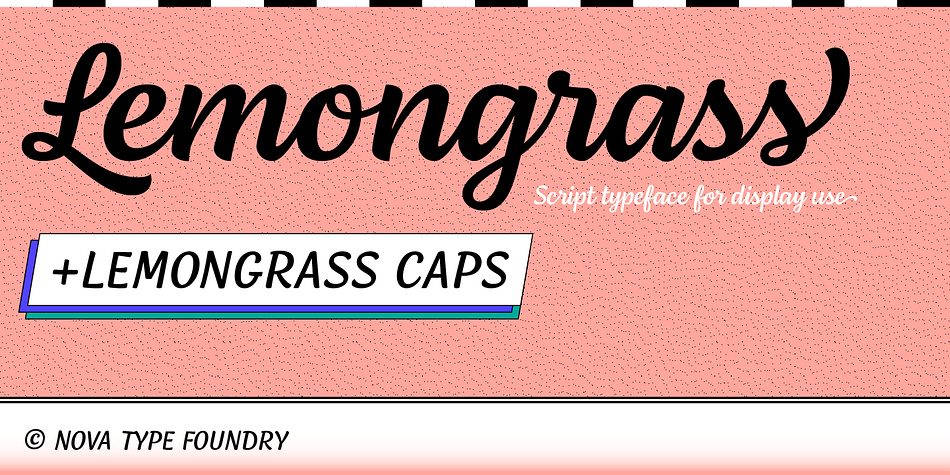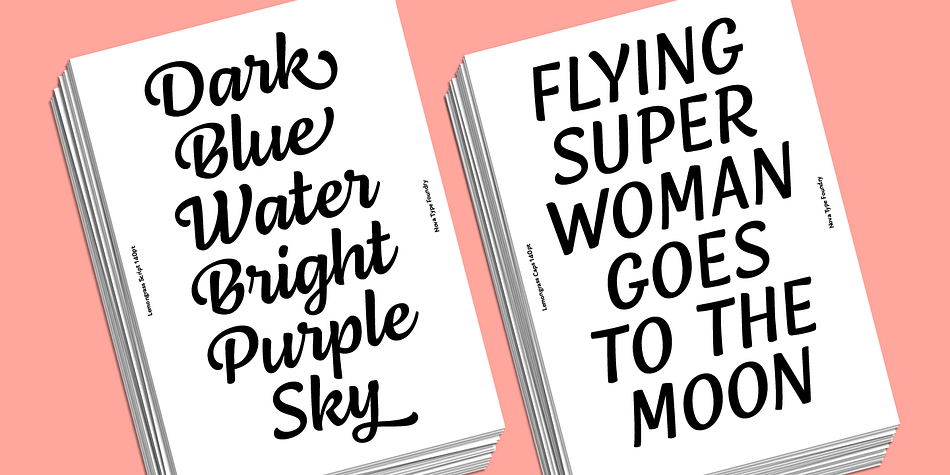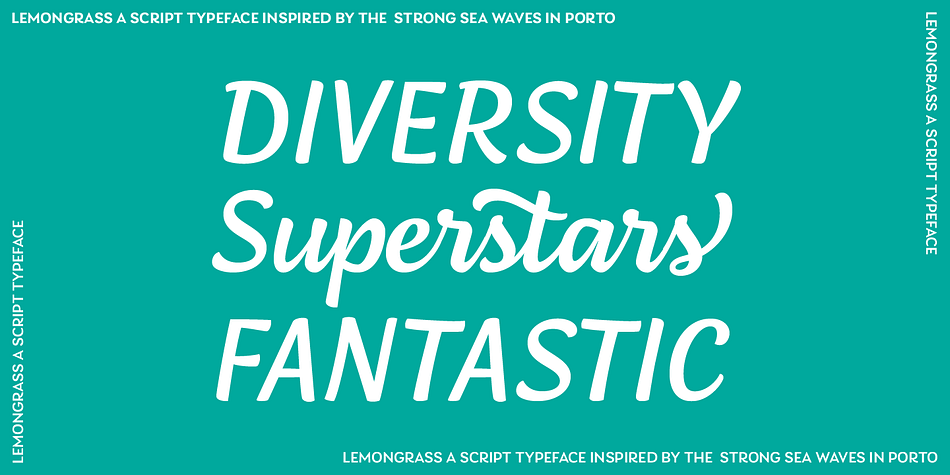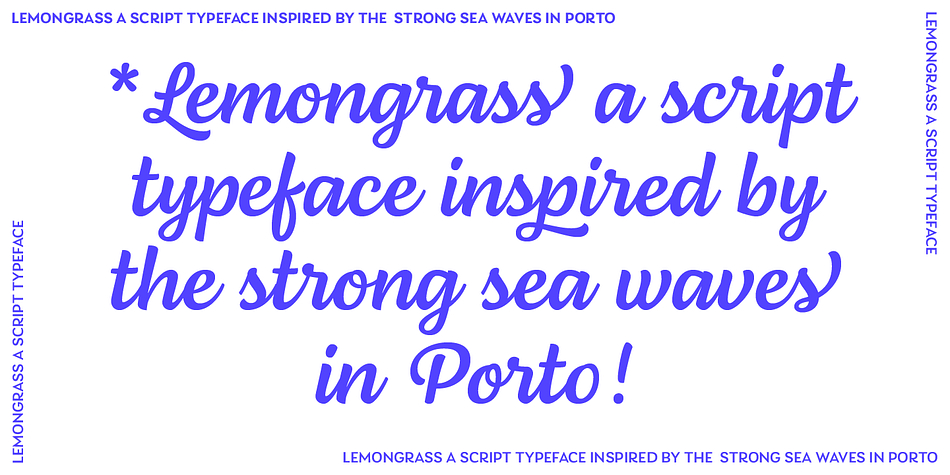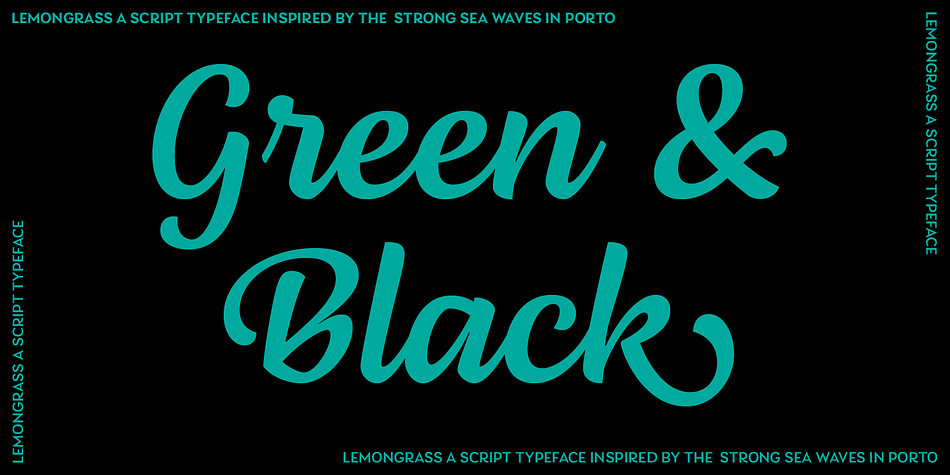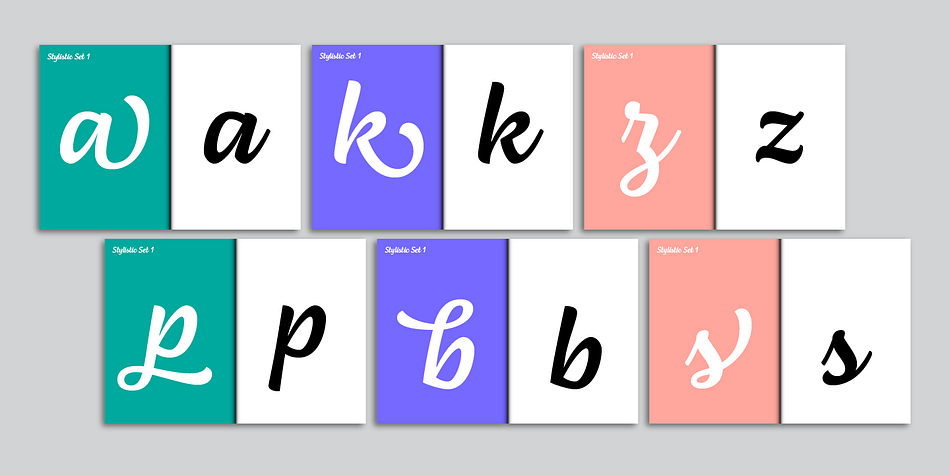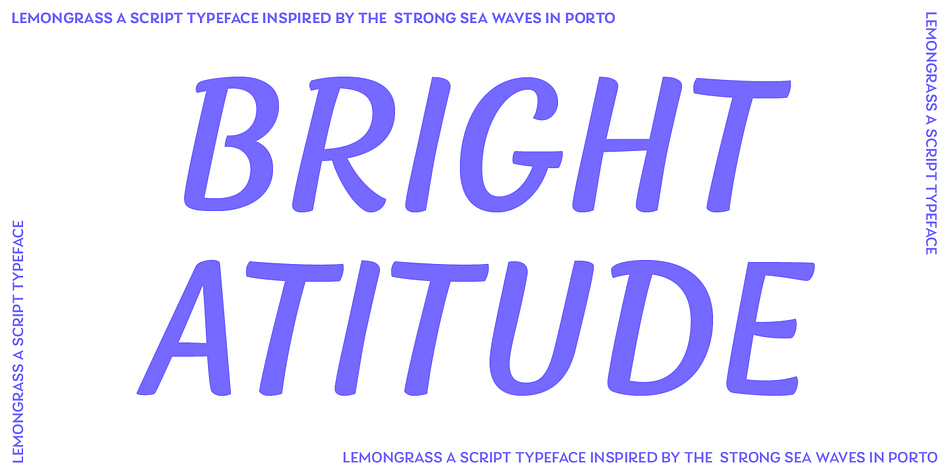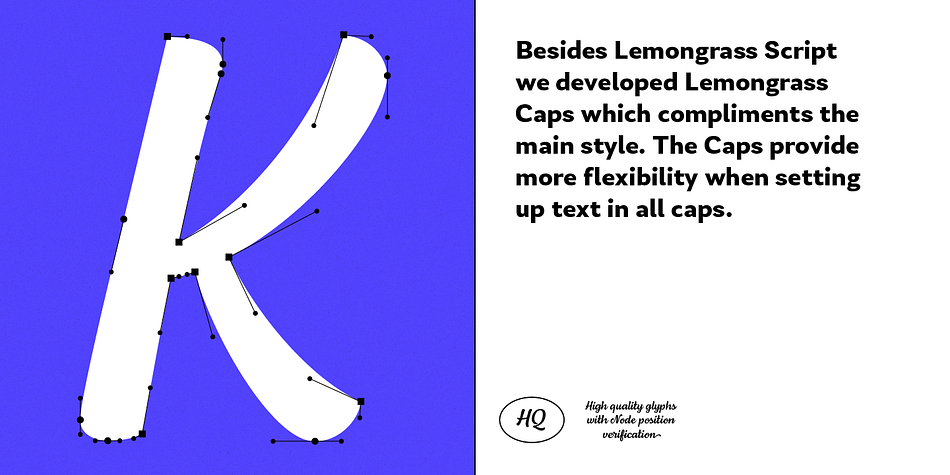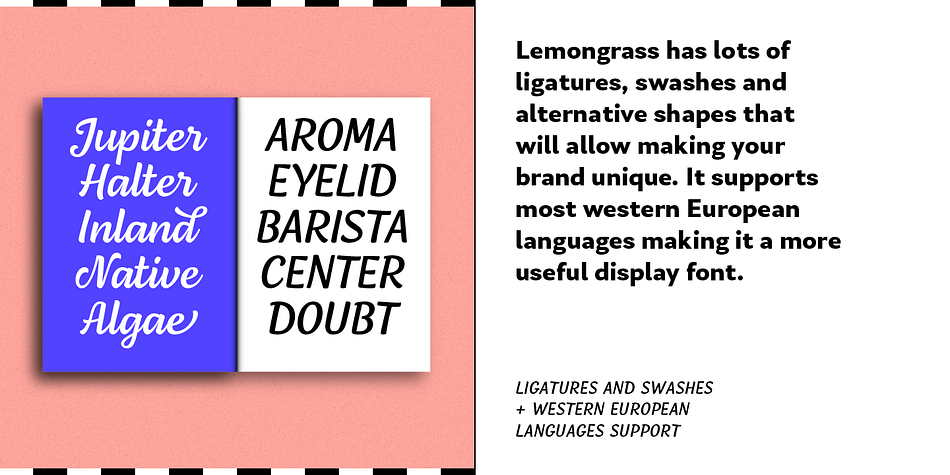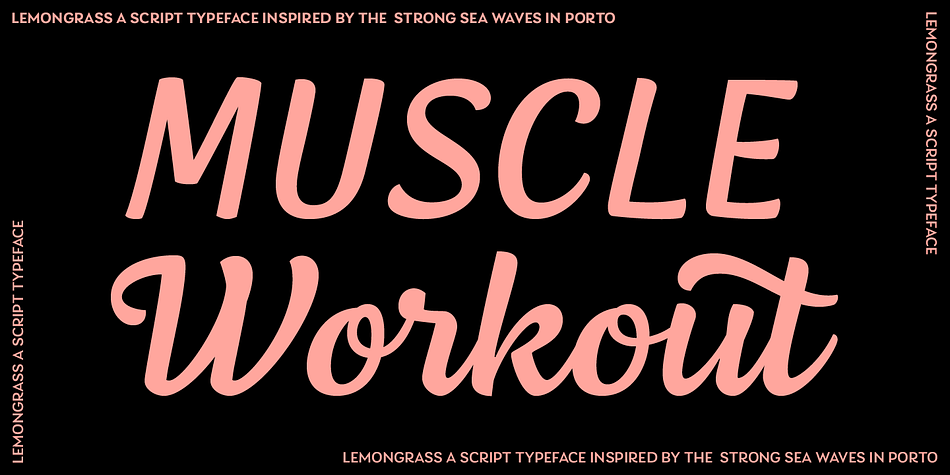
Designed by Joana Correia, Lemongrass Script is a brush display and brush script font family. This typeface has two styles and was published by Nova Type Foundry.
Lemongrass is a connected script typeface for display use. It is inspired by brush lettering and the sea and the strong winds that exist in Portugal. These winds are called “nortada”, which was also the developing name of the font. It has low contrast and smooth connections to get a good rhythm in the text. Lemongrass can be used for branding and packaging where it will shine, but it can also be used in small text creating beautiful content.
Lemongrass has lots of ligatures, swashes and alternative shapes that will allow making your brand unique. It supports most western European languages making it a more useful display font.
Lemongrass Caps complements the main style allowing for variety in your layout.